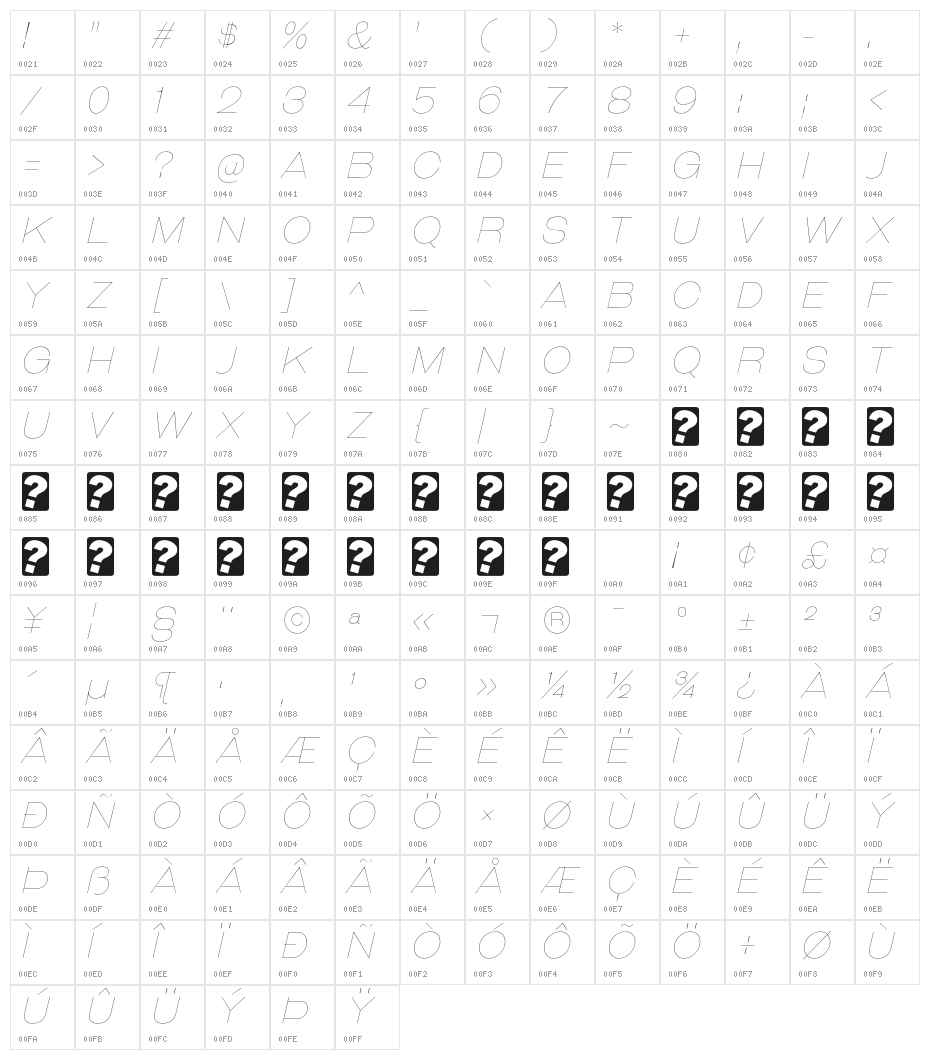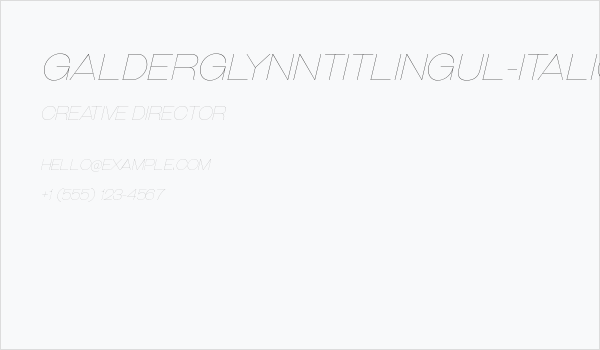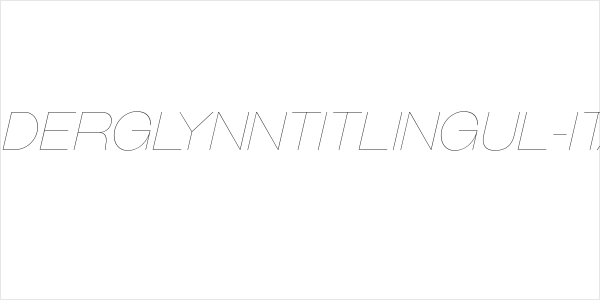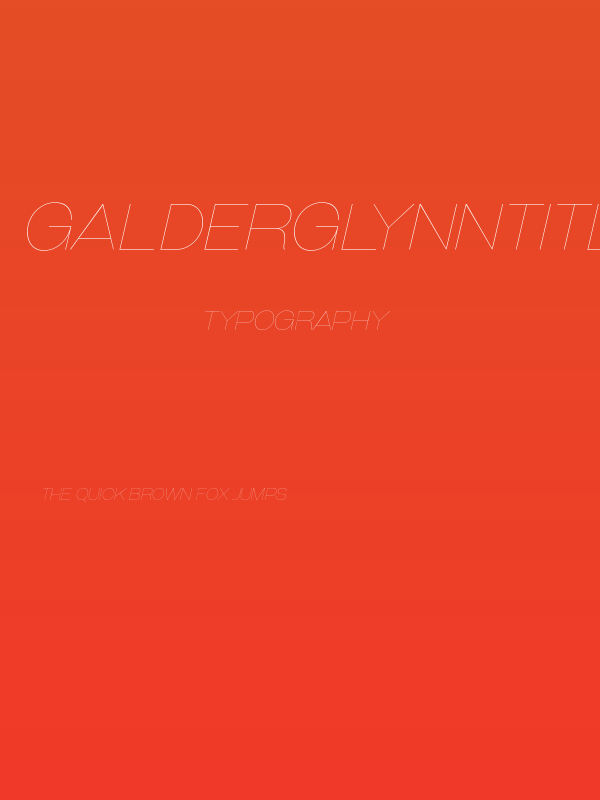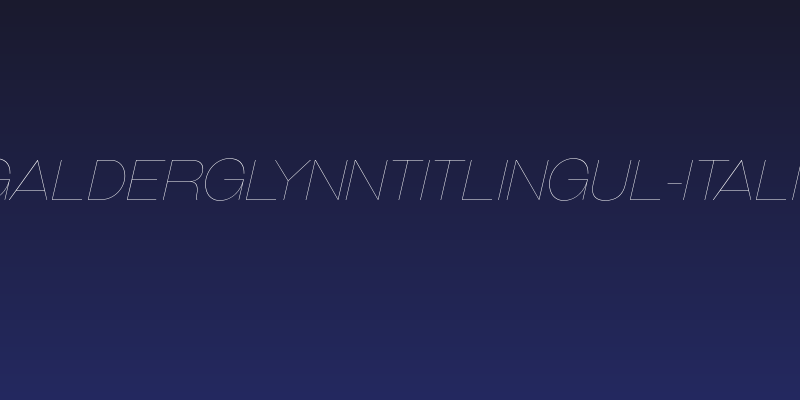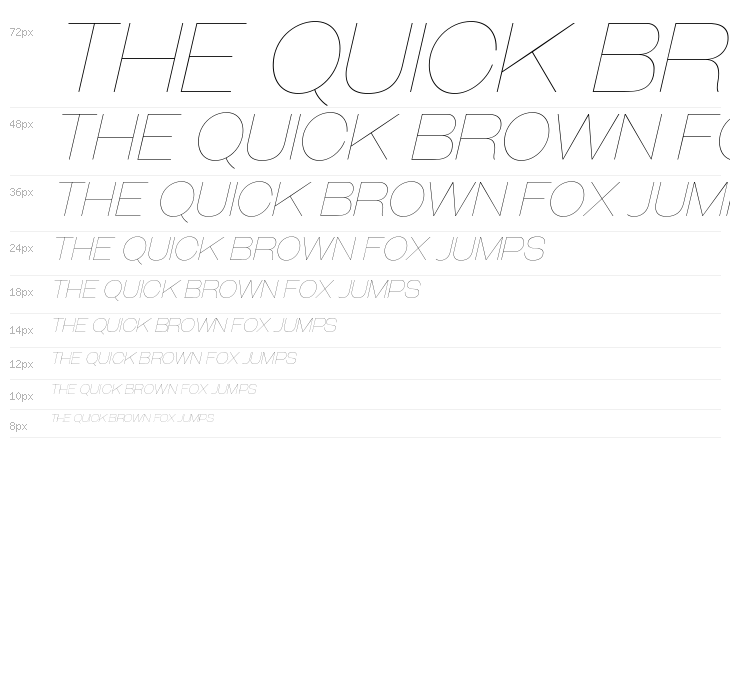
GalderglynnTitlingUl-Italic Font
GalderglynnTitlingUl-Italic Description
This font exhibits a sleek, modern design with a distinct italic slant, giving it a dynamic and forward-moving appearance. The characters are crafted with thin, elegant lines that maintain a consistent stroke width throughout, contributing to a clean and minimalist aesthetic. The uppercase and lowercase letters are well-proportioned, with a slight inclination that adds a sense of motion and sophistication. The numerals and special characters follow the same stylistic cues, ensuring uniformity across all elements. This font's refined elegance makes it suitable for a variety of contemporary design applications.
| Proposed Projects | Ideal for modern branding, editorial design, fashion magazines, and luxury product packaging. |